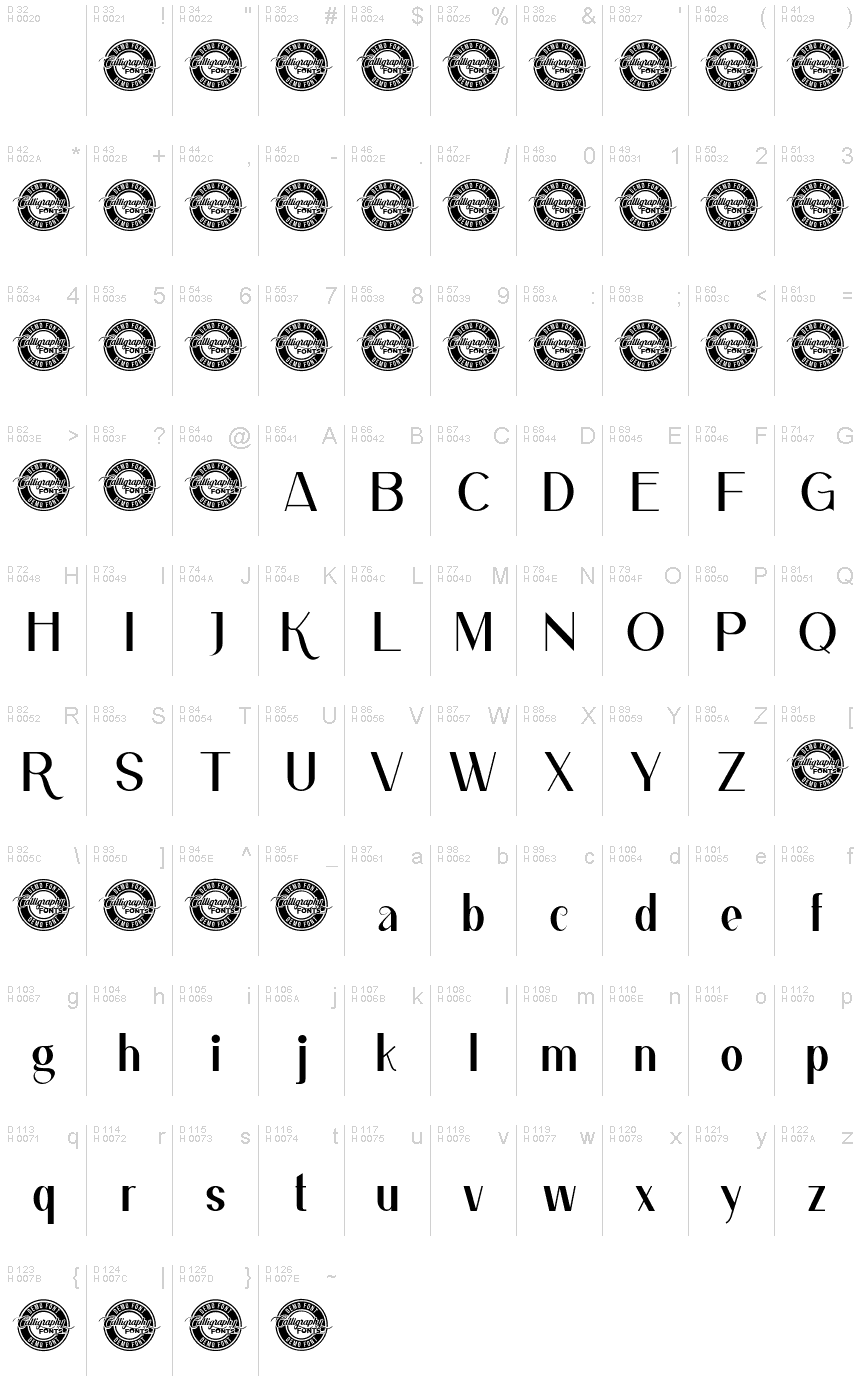
Brittany Rays Demo
Brittany Rays, designed by Widiyanti & Sarah SP, is a stunning vintage sans serif font that boasts a semi-light weight. With its elegant curves and classic feel, this font is perfect for projects that require a touch of old-world charm. From wedding invitations and greeting cards to vintage-inspired logos and branding materials, Brittany Rays adds a timeless quality to any design. This versatile font can be used in both digital and print mediums, making it an ideal choice for web designers, graphic designers, and anyone looking to elevate their projects with a touch of sophistication.